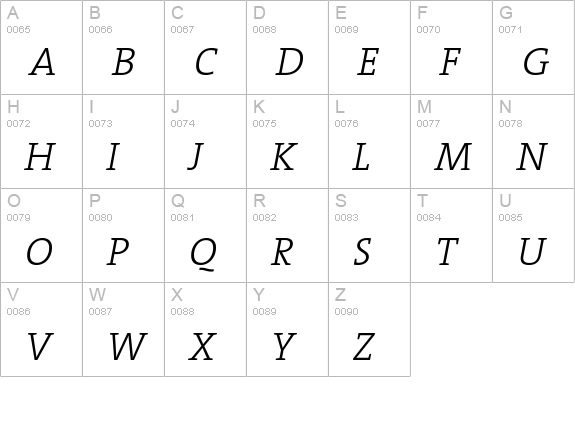
TheSerif Light Caps Italic Font Details
TheSerif Light Caps Italic is a refined, elegant, italic variant in the TheSerif typeface family \xE2\x80\x94 well suited to elegant body text, refined sub-headings, and luxury branding.
TheSerif Light Caps Italic font is an exquisite and elegant typeface that exudes sophistication and charm. With its delicate and slanted letterforms, this font adds a touch of grace and refinement to any design project. Perfect for headings, titles, and logo designs, TheSerif Light Caps Italic font effortlessly combines classical elements with a modern twist. Its clean lines and subtle curves create a harmonious balance, making it a versatile choice for both digital and print applications. One of the most appealing aspects of TheSerif Light Caps Italic font is that it is freely available to download at FontsMarket.com. This means that designers and creatives can access this beautiful typeface without any cost or restrictions. Whether you are working on a personal project or a commercial endeavor, TheSerif Light Caps Italic font offers endless possibilities. Its unique blend of elegance and legibility makes it suitable for a wide range of design purposes, including branding, packaging, editorial layouts, and more. With its timeless appeal and impeccable craftsmanship, TheSerif Light Caps Italic font is a must-have for any designer's toolkit. Its versatility, combined with the fact that it is free to download, makes it an excellent choice for both beginners and seasoned professionals alike. So, if you are looking for a font that embodies style, sophistication, and affordability, look no further than TheSerif Light Caps Italic font. Download it now from FontsMarket.com and elevate your designs to new heights with this exceptional typeface.